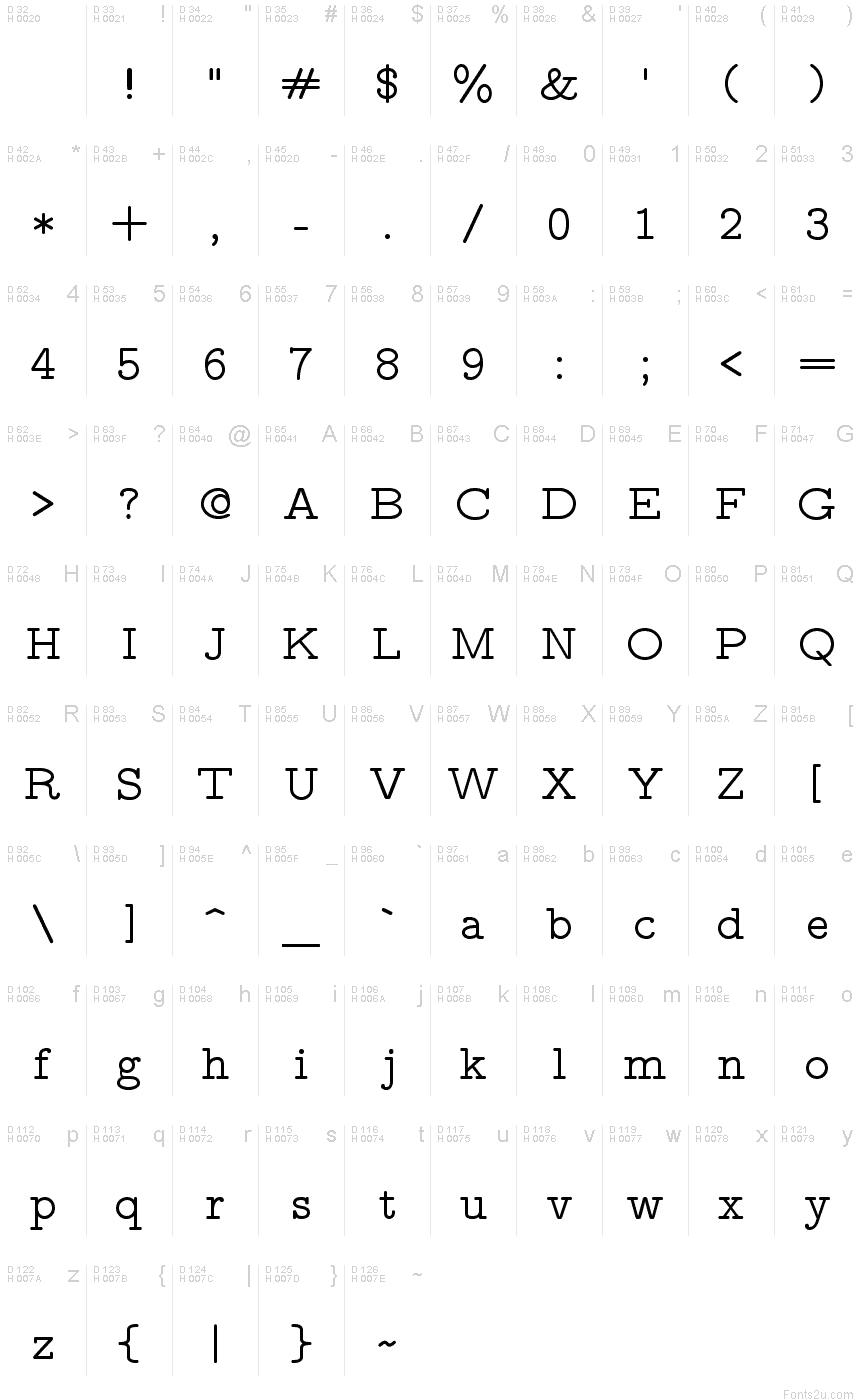
LMMonoProp10 by B. Jackowski and J. M. Nowacki of the TeX Users Groups is a free typewriter serif with a crisp, measured build. Its upright letters use even strokes and sturdy slab serifs.
Technical publishing and retro branding both benefit from its orderly, mechanical texture. It also fits code-themed posters and software documentation, where the restrained shapes suggest precision without looking stark. The repeated slab endings make the lettering apt for editorial graphics that reference terminals and digital typesetting.